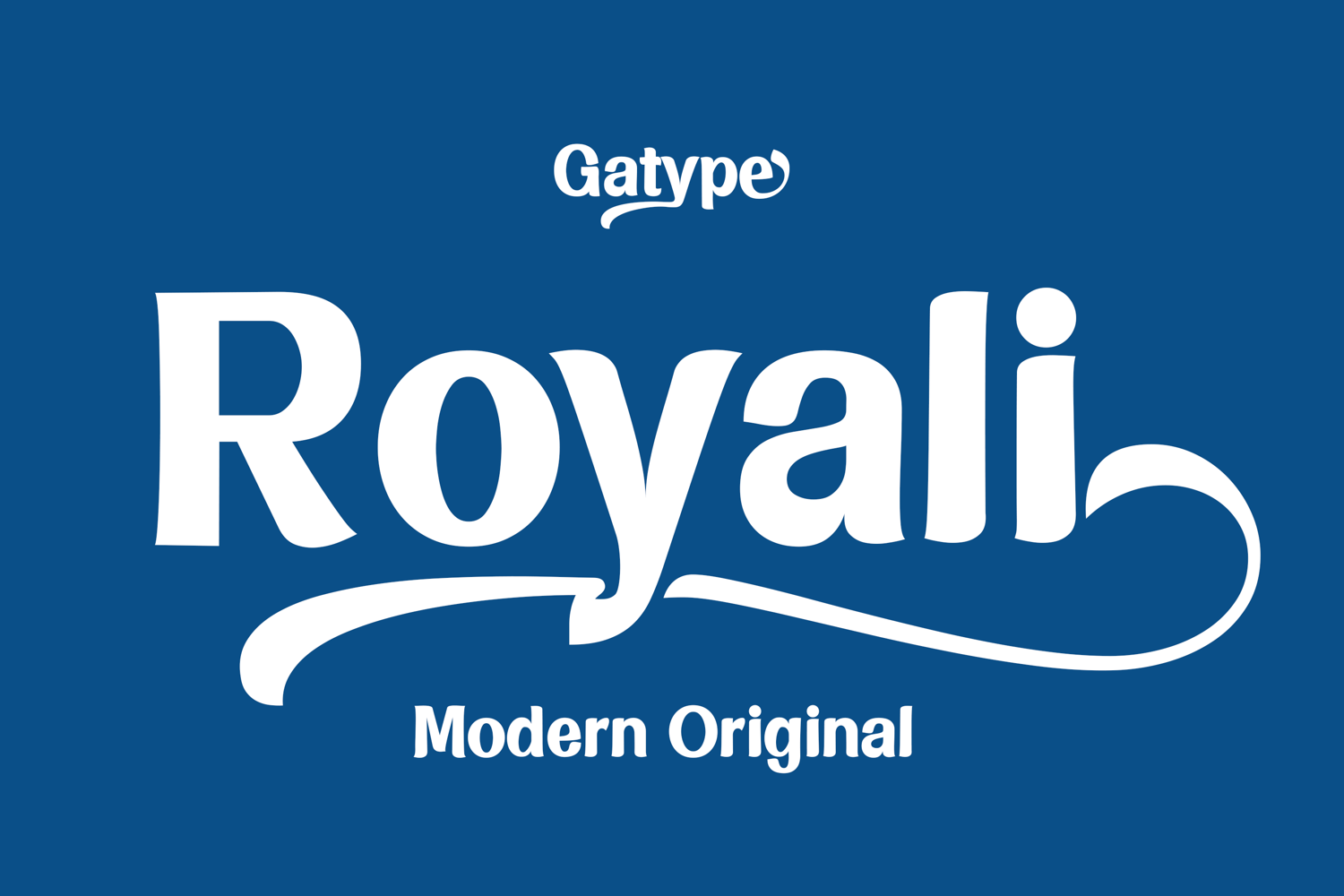
Royali is a modern elegant serif that blends timeless sophistication with a fresh, contemporary touch.
Every curve and detail is carefully crafted to express confidence, beauty, and originality — giving each letter a distinctive royal charm.
This typeface includes alternates and stylish ligatures, allowing you to create unique, luxurious typography with ease.
Perfect for branding, editorial designs, and any project that calls for a refined yet modern feel.
Use it for: logos, fashion branding, magazines, packaging, or elegant invitations.
✨ Features:
Uppercase & lowercase
Alternates & ligatures
Multilingual support
Punctuation & symbols